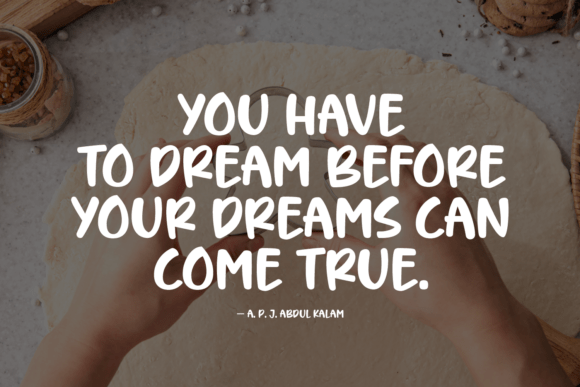
Introducing Fresh Crunch Font: The Perfect Blend of Casual Charm and Versatility
In the world of typography, fonts play a crucial role in conveying the tone and personality of a brand or design. When it comes to creating a friendly, down-to-earth aesthetic, the right font can make all the difference. This is where Fresh Crunch Font comes in – a hand-drawn font that embodies the perfect blend of casual charm and versatility.
What is Fresh Crunch Font?
Fresh Crunch Font is a hand-drawn font that exudes a casual and approachable feel. Its natural, spontaneous energy is palpable, making it an excellent choice for designs that require a friendly and organic touch. The font’s smooth, brush-pen-like strokes lend it an organic feel, while its inherent warmth and playfulness make it ideal for a wide range of design applications.
Key Features of Fresh Crunch Font
So, what sets Fresh Crunch Font apart from other fonts? Here are some of its key features:
- Complete set of uppercase and lowercase letters: Fresh Crunch Font includes a comprehensive set of uppercase and lowercase letters, providing flexibility for both headlines and body text.
- Full complement of numerals and essential punctuation: The font features a full set of numerals and essential punctuation marks, making it suitable for a wide range of textual requirements.
- Multilingual support: Fresh Crunch Font offers multilingual support, broadening its appeal to a global audience.
The Benefits of Using Fresh Crunch Font
So, why should you choose Fresh Crunch Font for your design projects? Here are some benefits of using this versatile font:
- Conveys a friendly and approachable tone: Fresh Crunch Font’s casual and hand-drawn feel makes it perfect for designs that require a friendly and approachable tone.
- Ideal for designs seeking a down-to-earth aesthetic: The font’s organic touch and natural energy make it suitable for designs that require a down-to-earth and earthy feel.
- Versatile and flexible: Fresh Crunch Font’s comprehensive character set and multilingual support make it a versatile font that can be used for a wide range of design applications.
Design Applications for Fresh Crunch Font
Fresh Crunch Font’s versatility makes it suitable for a wide range of design applications, including:
- Branding and logos: The font’s friendly and approachable feel makes it perfect for branding and logo designs that require a casual and down-to-earth tone.
- Headlines and titles: Fresh Crunch Font’s smooth and brush-pen-like strokes make it ideal for headlines and titles that require a natural and organic feel.
- Body text and paragraphs: The font’s comprehensive character set and multilingual support make it suitable for body text and paragraphs that require a friendly and approachable tone.
- Packaging and advertising: Fresh Crunch Font’s versatility and flexibility make it perfect for packaging and advertising designs that require a casual and down-to-earth aesthetic.
Tips for Using Fresh Crunch Font Effectively
Here are some tips for using Fresh Crunch Font effectively in your design projects:
- Pair with other fonts: Fresh Crunch Font can be paired with other fonts to create a unique and visually appealing typography.
- Use for headlines and titles: The font’s smooth and brush-pen-like strokes make it ideal for headlines and titles that require a natural and organic feel.
- Experiment with different colors: Fresh Crunch Font’s versatility makes it suitable for a wide range of colors and design applications.
In conclusion, Fresh Crunch Font is a hand-drawn font that offers a perfect blend of casual charm and versatility. Its smooth, brush-pen-like strokes and natural energy make it ideal for designs that require a friendly and down-to-earth aesthetic. With its comprehensive character set, multilingual support, and flexibility, Fresh Crunch Font is a valuable addition to any designer’s font library.